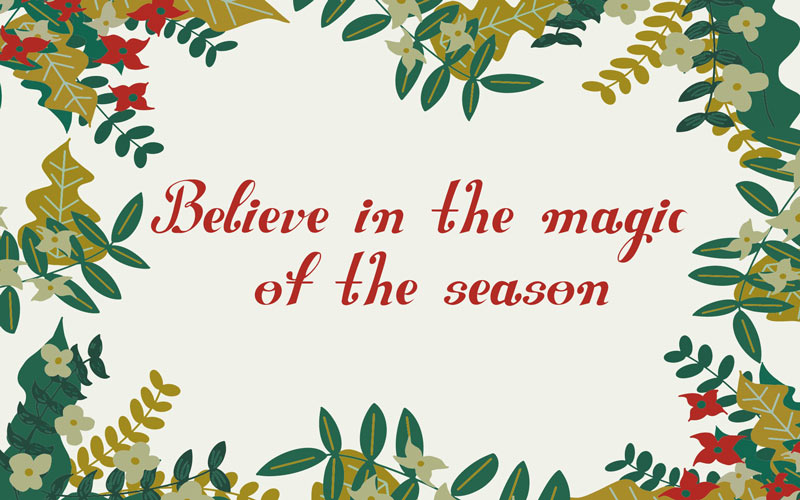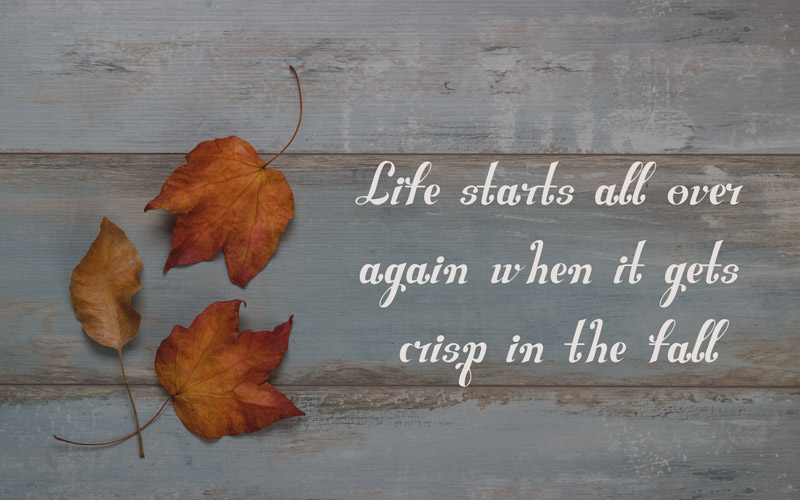
Are you working on multiple design projects that require an elegant & beautiful look?
Searching for perfect fonts can be messy for a designer. Therefore, Pixelo has brought you a Wonderful font to create elegance and modernity.
Carefully handpicked Wonderful font is a Handwritten Script font that belongs to the “Corque” Typeface.
Use it for social media posts, banners, thumbnails, cards & invites, and more! You can also use this for multipurpose design combined with your most original ideas to make them come to life.